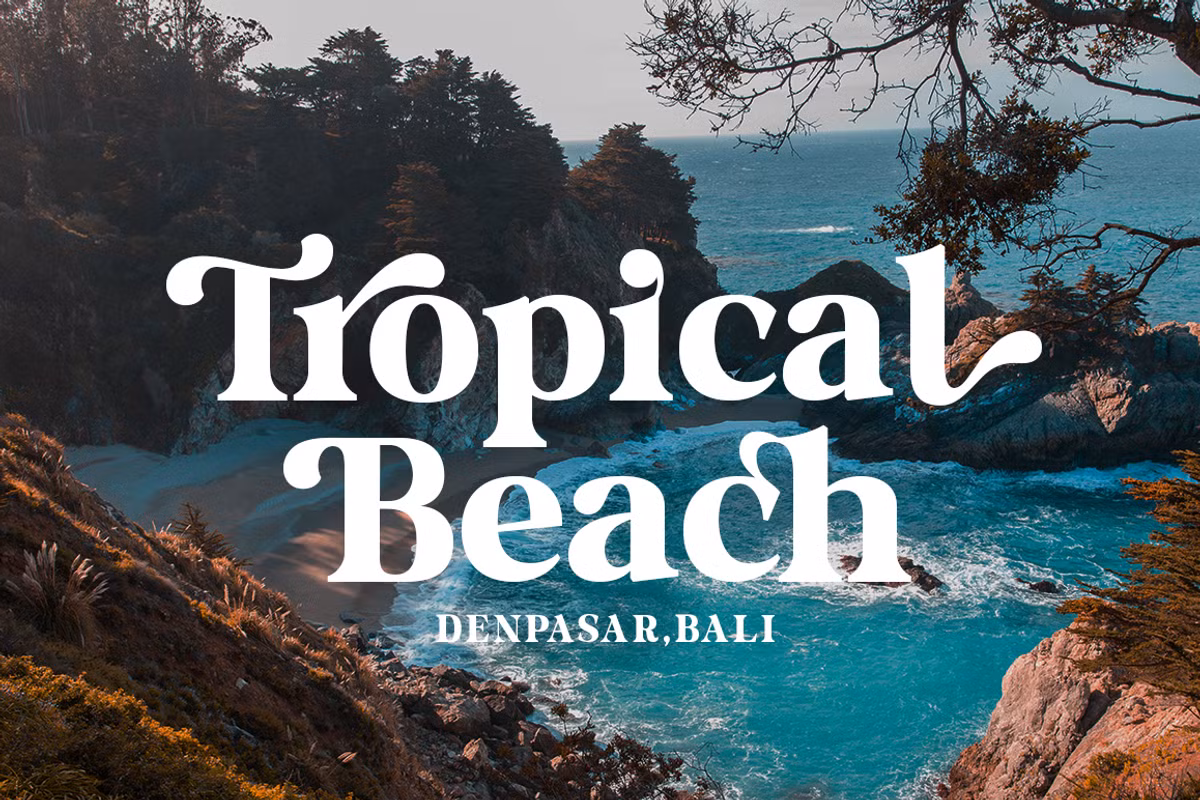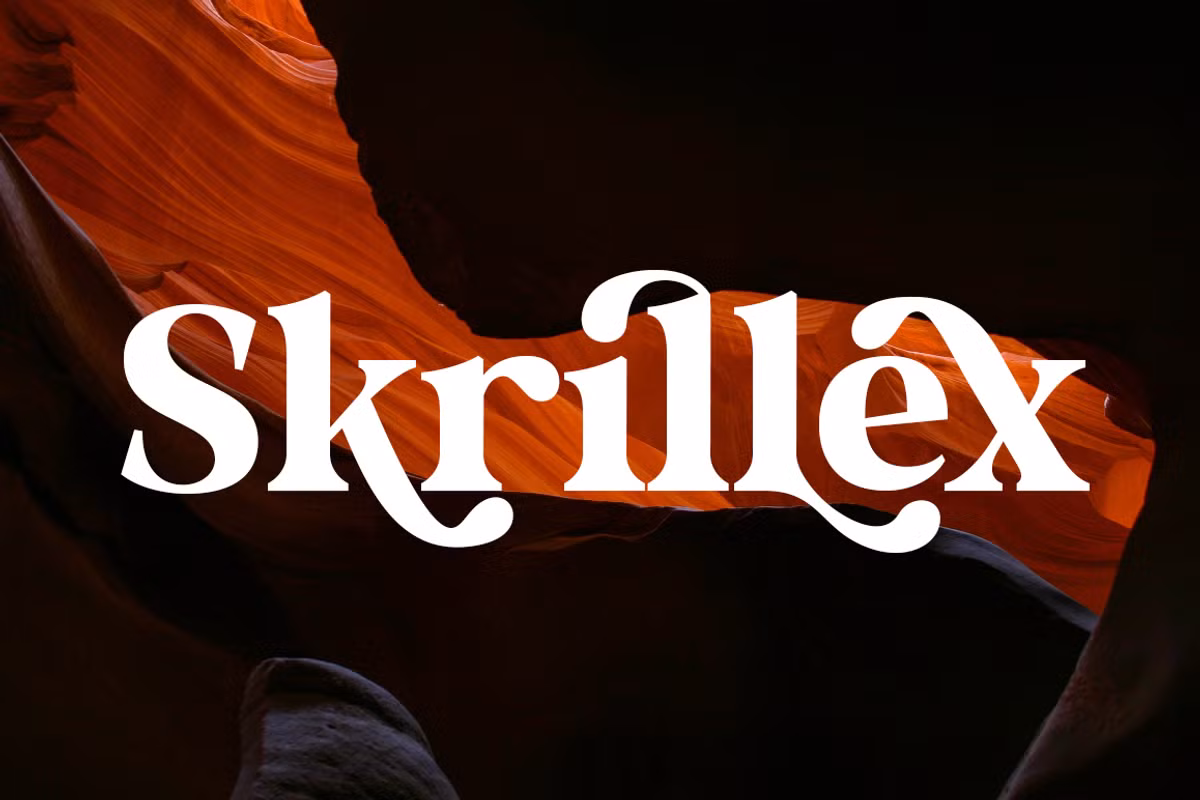
Milk And Honey: Versatile Modern Vintage Serif Font for Elegant Design
Milk And Honey is a really cool font that mixes old and new styles. It’s great for lots of different design projects because it’s so versatile. The characters look super stylish and it has lots of extra features that make it easy to use. If you’re a designer looking to make your work stand out, Milk And Honey is a great choice. It’s elegant and sophisticated, and it will help you make a lasting impression. Whether you’re working on a big project or just something small, this font is perfect for adding a touch of class. With all its features and stylish look, Milk And Honey is a fantastic option for anyone who wants to take their design to the next level.
Milk And Honey has a really cool style that’s a mix of old and new. It’s got smooth lines and special details that make it look fancy, which is great for high-end designs, packaging, and editorials. The font is one of a kind, so it adds a touch of class to your projects, making it perfect for anything that wants to look luxurious and elegant.
Milk And Honey is a pretty cool font – it’s got a mix of bold and delicate strokes that make it stand out, whether you’re using it big or small. This means you can use it for all sorts of things, like making a logo that really grabs attention, a magazine cover that pops, or some stylish graphics for clothes. The overall look is modern, but also warm and cozy, which makes it perfect for brands that want to make people feel all comfy and familiar. It’s like a big hug in font form!
Character Sets and Features
Milk And Honey has a really cool feature – it’s got a huge set of characters, with up to 329 different glyphs. This means you can customize your typography in a lot of different ways. The font includes 20 ligatures and 97 alternate characters, which gives designers a lot of flexibility to make their work look unique. With all these options, you can create some really interesting and unique combinations that will make your designs stand out. This can be especially helpful if you’re looking to add some visual appeal to your work and make it look different from everything else out there. The possibilities are pretty endless, and it’s easy to see why Milk And Honey is a popular choice for designers who want to add some extra flair to their projects.
Milk And Honey is incredibly versatile and can be employed in a variety of design contexts. Here are some prominent use cases:
- Brand Identity: Milk And Honey can give your brand a whole new look, whether you’re just starting out or want to refresh your old style. They can help you show off your brand’s personality in a really elegant and sophisticated way.
- Logo Design: With its distinctive serifs and attractive ligatures, this font is perfect for creating memorable logos that leave a lasting impression.
- Apparel Branding: Use Milk And Honey for T-shirt designs and clothing labels to add a touch of class and vintage charm.
- Product Labels: Make your products look great on store shelves with this nice font. It can help them stand out and look really good. This font has a simple and classy style that can make your products look fancy and expensive.
- Editorial Design: From magazine titles to article headings, Milk And Honey adds elegance to any print or digital publication.
- Marketing Materials: Use this font in advertisements, postcards, and flyers to attract attention and convey sophistication.